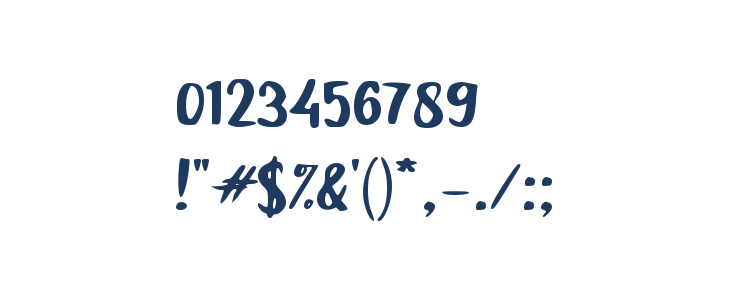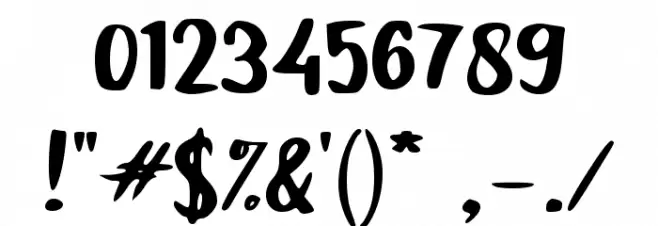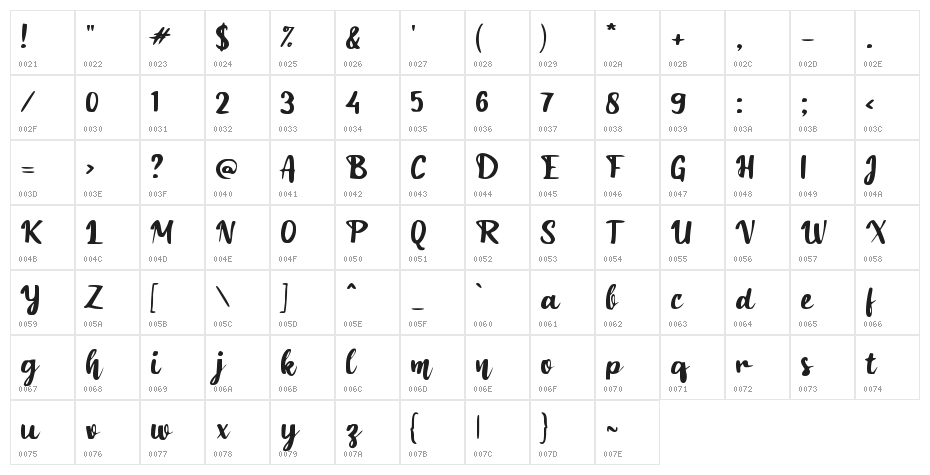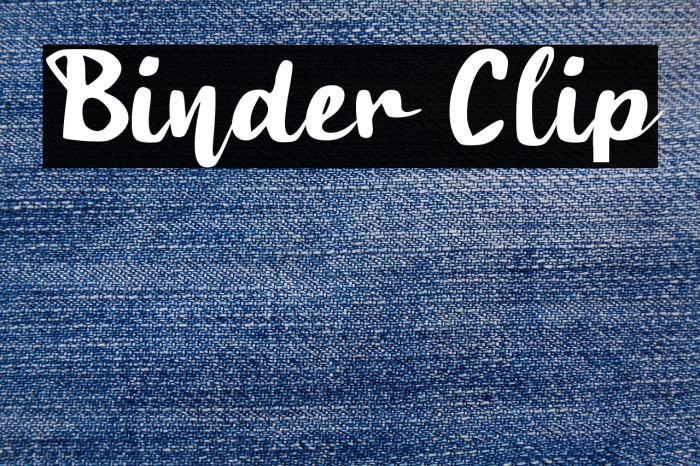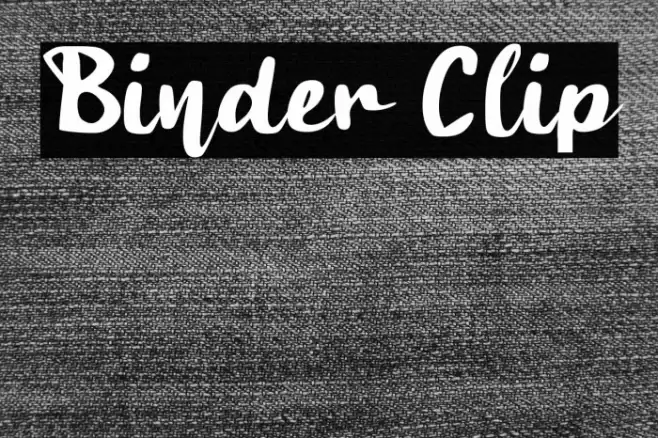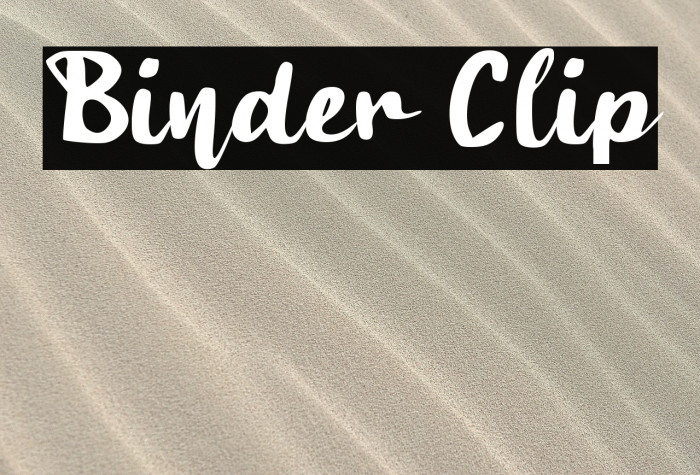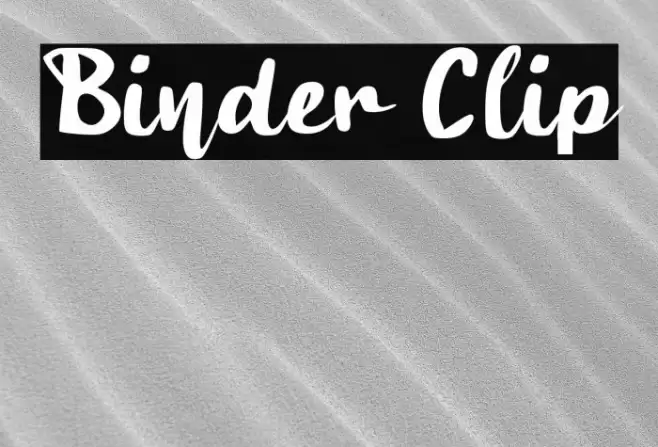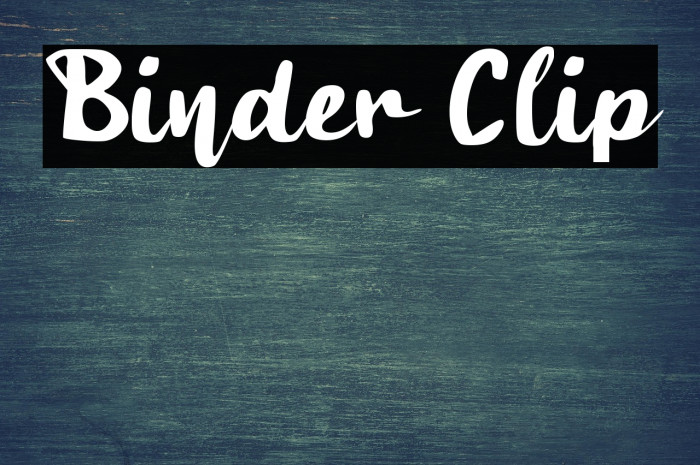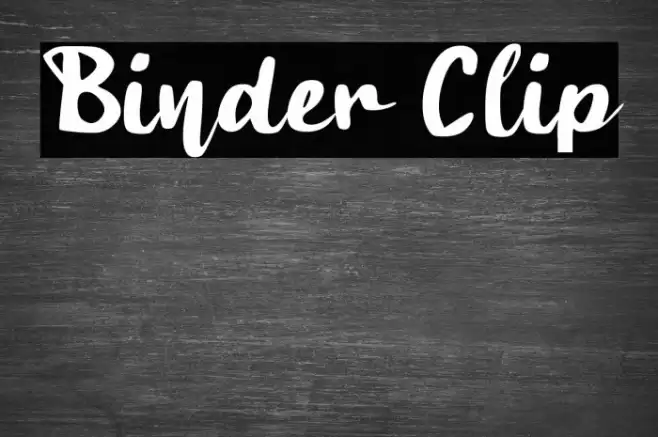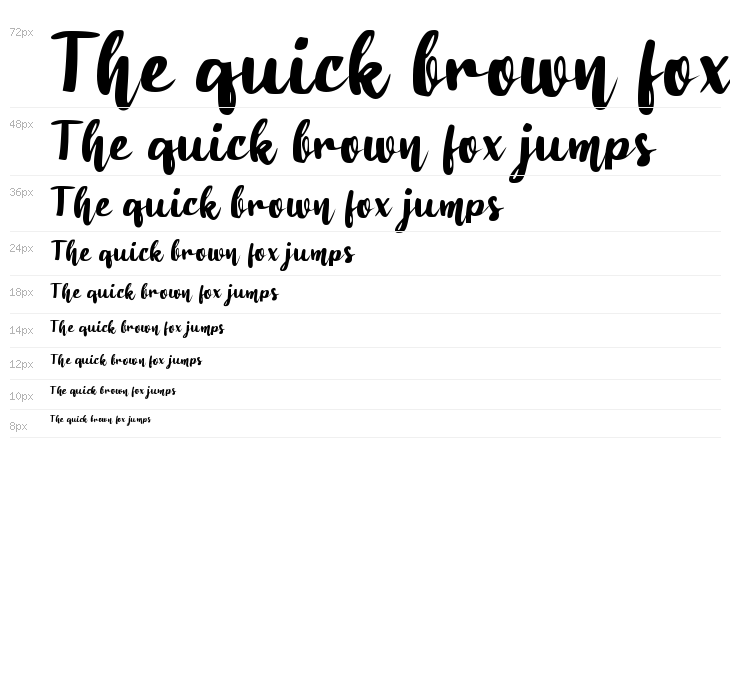
Binder Clip Font
Binder Clip Description
This font features a bold and expressive style with a handwritten appearance. The uppercase letters are characterized by their thick strokes and playful curves, giving them a lively and dynamic feel. The lowercase letters maintain a consistent flow, with some letters extending slightly below the baseline, adding to the casual and informal aesthetic. The numbers are bold and clear, ensuring legibility. Special characters are creatively designed, matching the overall energetic vibe of the font. This font is ideal for projects that require a personal touch and a sense of creativity.
| Proposed Projects | Perfect for greeting cards, invitations, posters, and branding projects that require a personal and creative touch. |